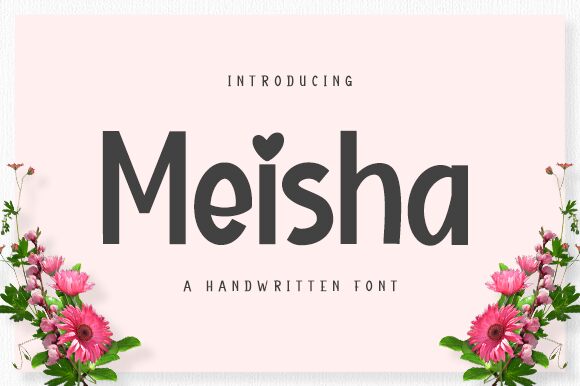
Meisha, a delightful creation by Nirmala Creative, is a vibrant display font that brings fun and playfulness to any design project. With its comic style, Meisha adds a touch of whimsy to children's books, greeting cards, and party invitations. This font is also suitable for creating eye-catching logos and branding materials that demand attention. Let Meisha's semi-bold typeface make your designs pop with its lively personality and versatility. Whether it's a website or an advertisement, Meisha will captivate your audience with its unique blend of charm and creativity.